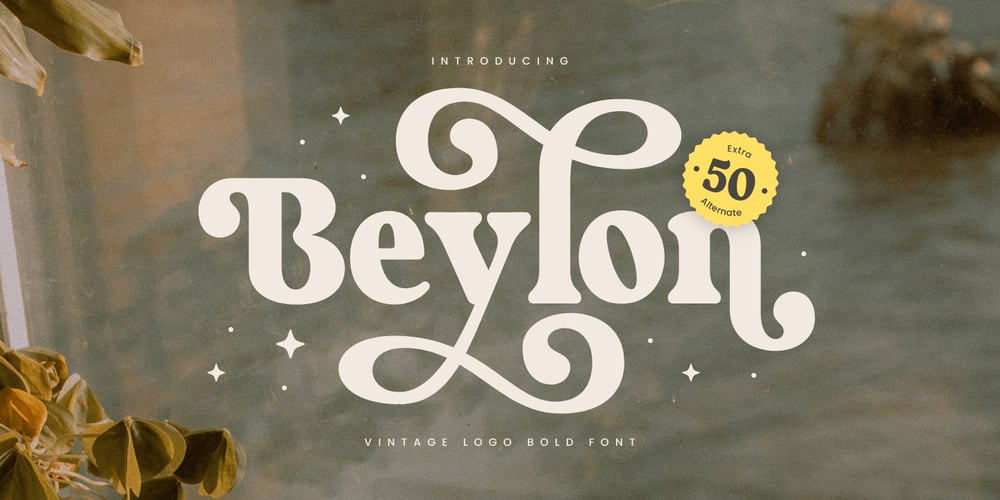
Beylon Font Family was designed by Zamroni Hamzah and published by Sensatype Studio. Beylon contains 1 styles and family package options. Beylon is a Vintage Logo Bold Font A New Vintage font that we created special for Unique branding needs, with extra ligature in unique style that ready to add value of your brand. It’s so nice to leverage designer or product owner that need solutions to make their design look more unique and vintage.